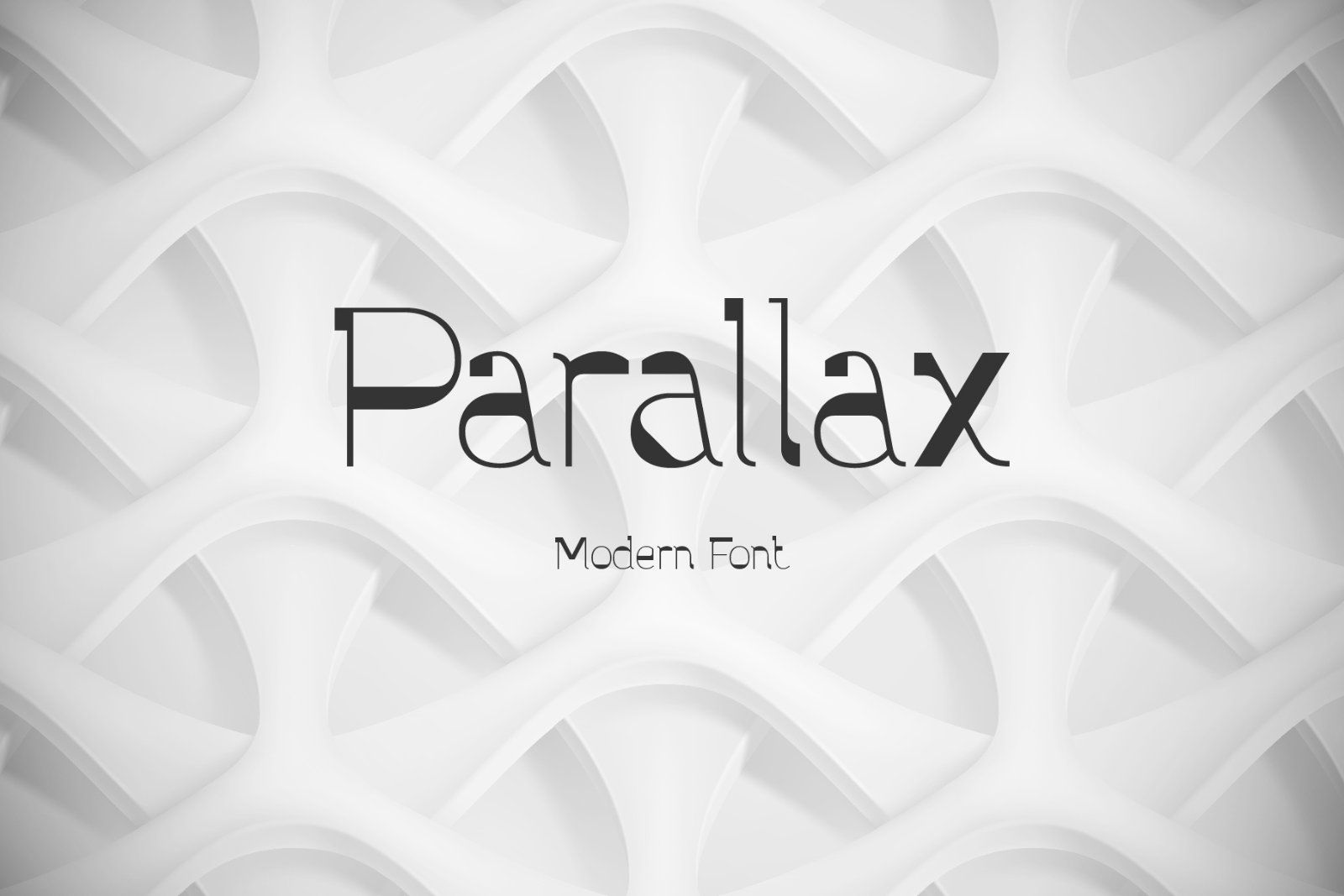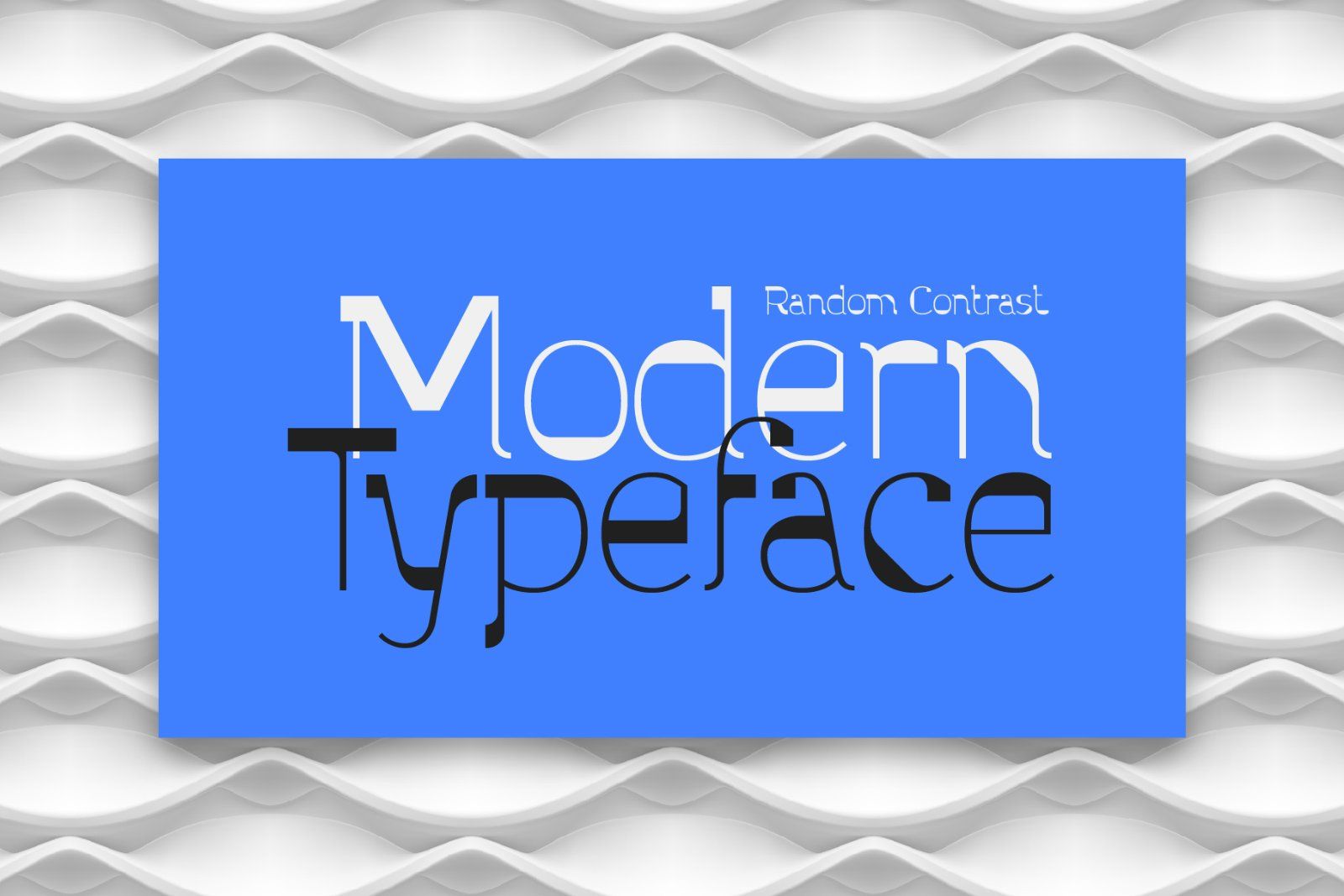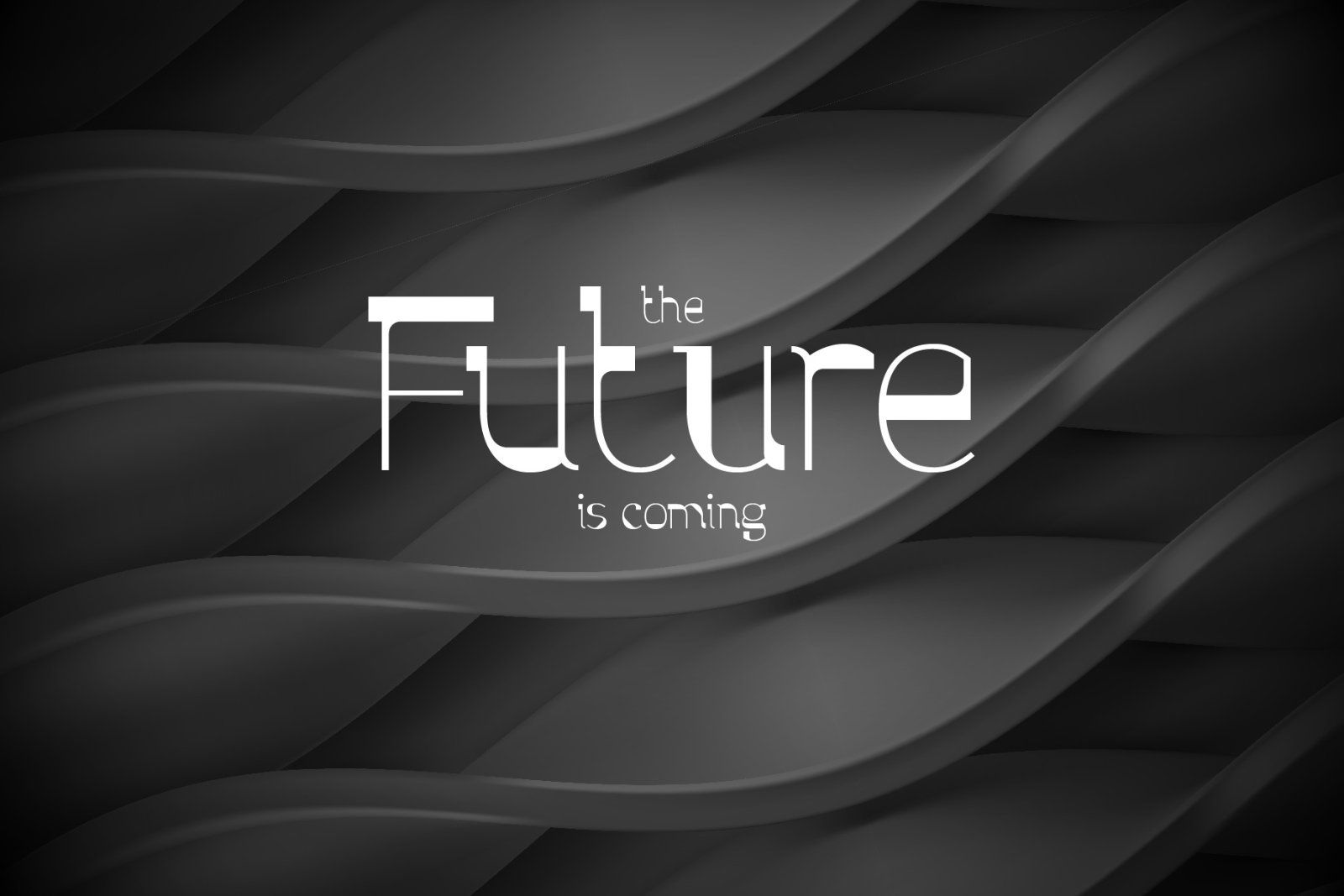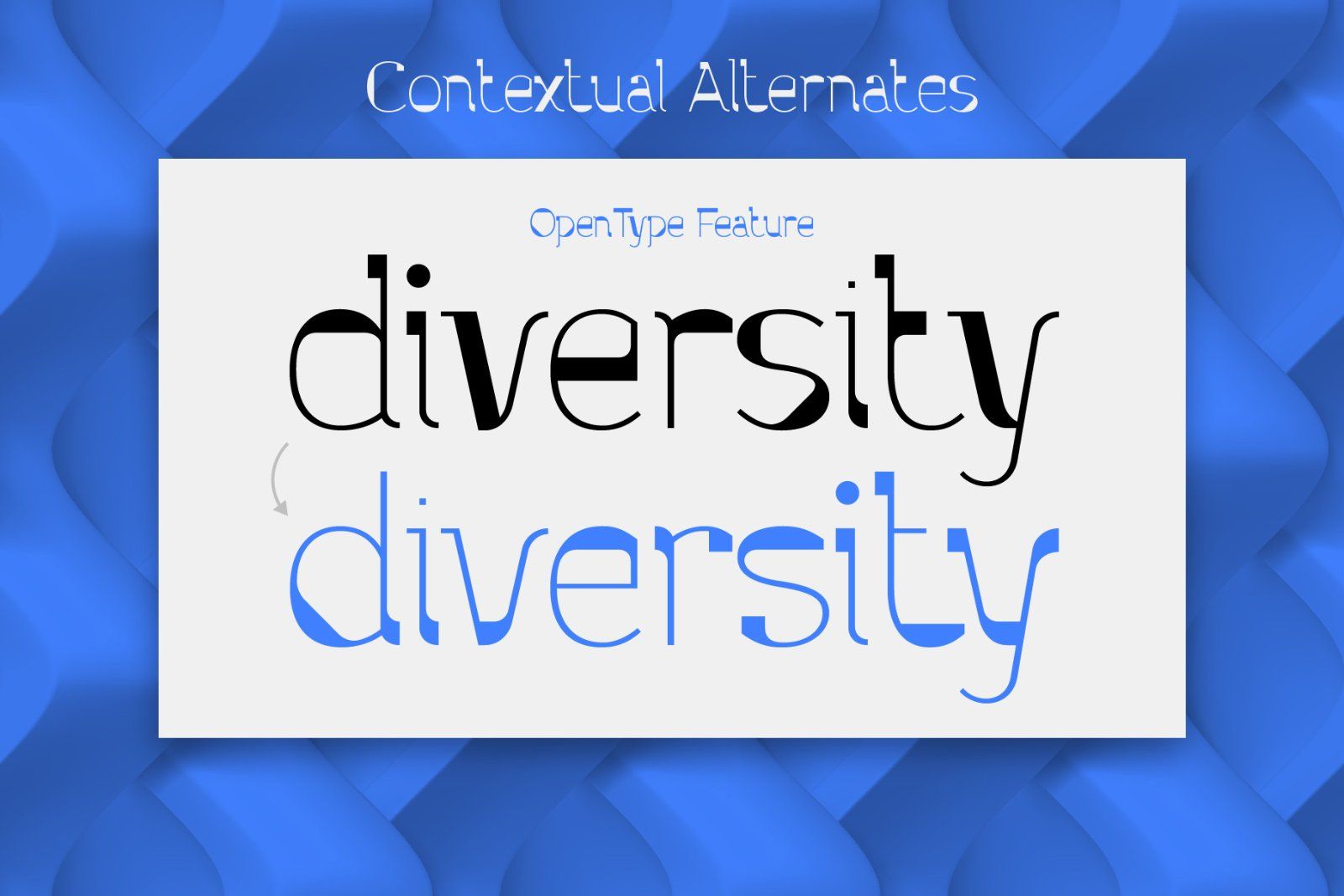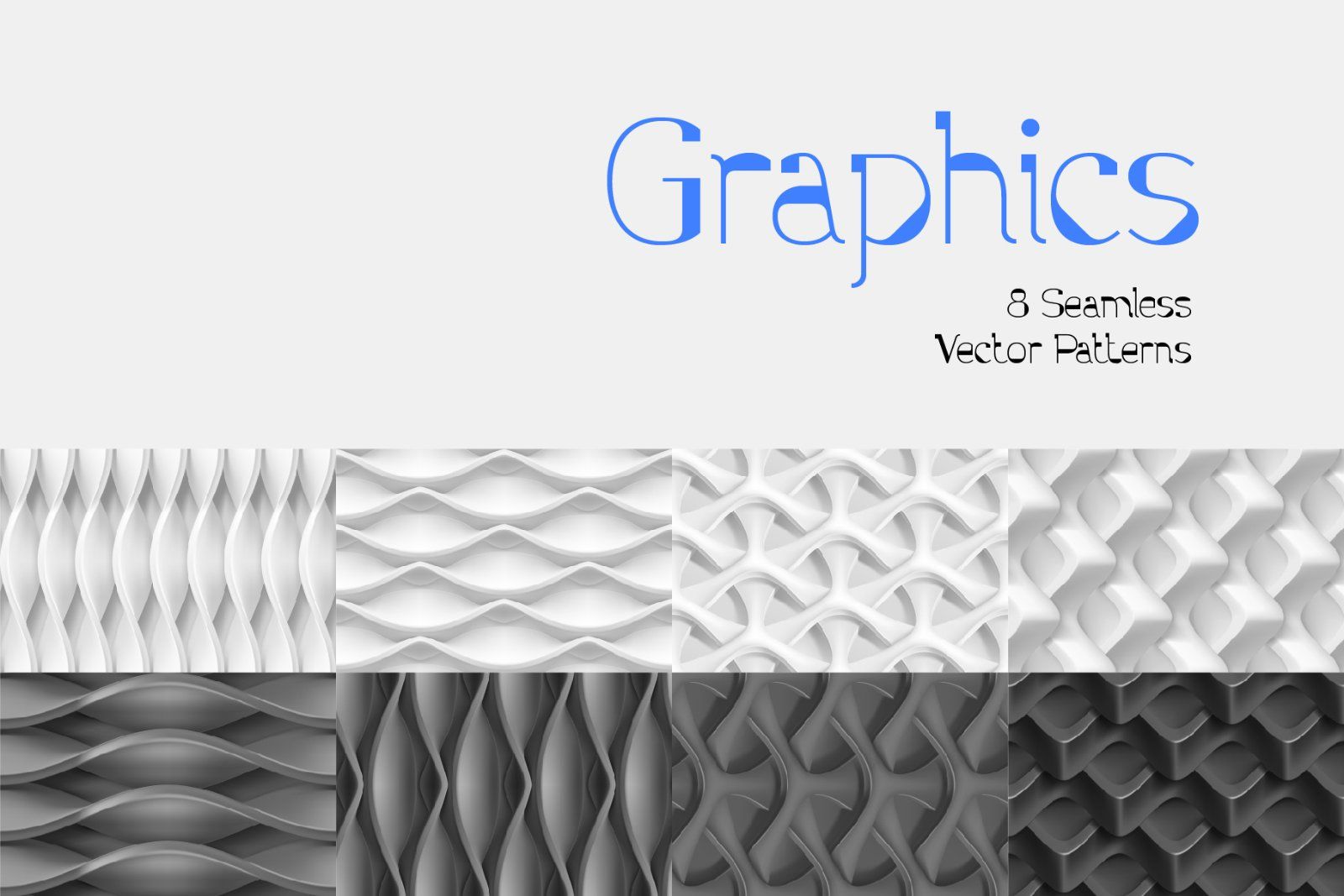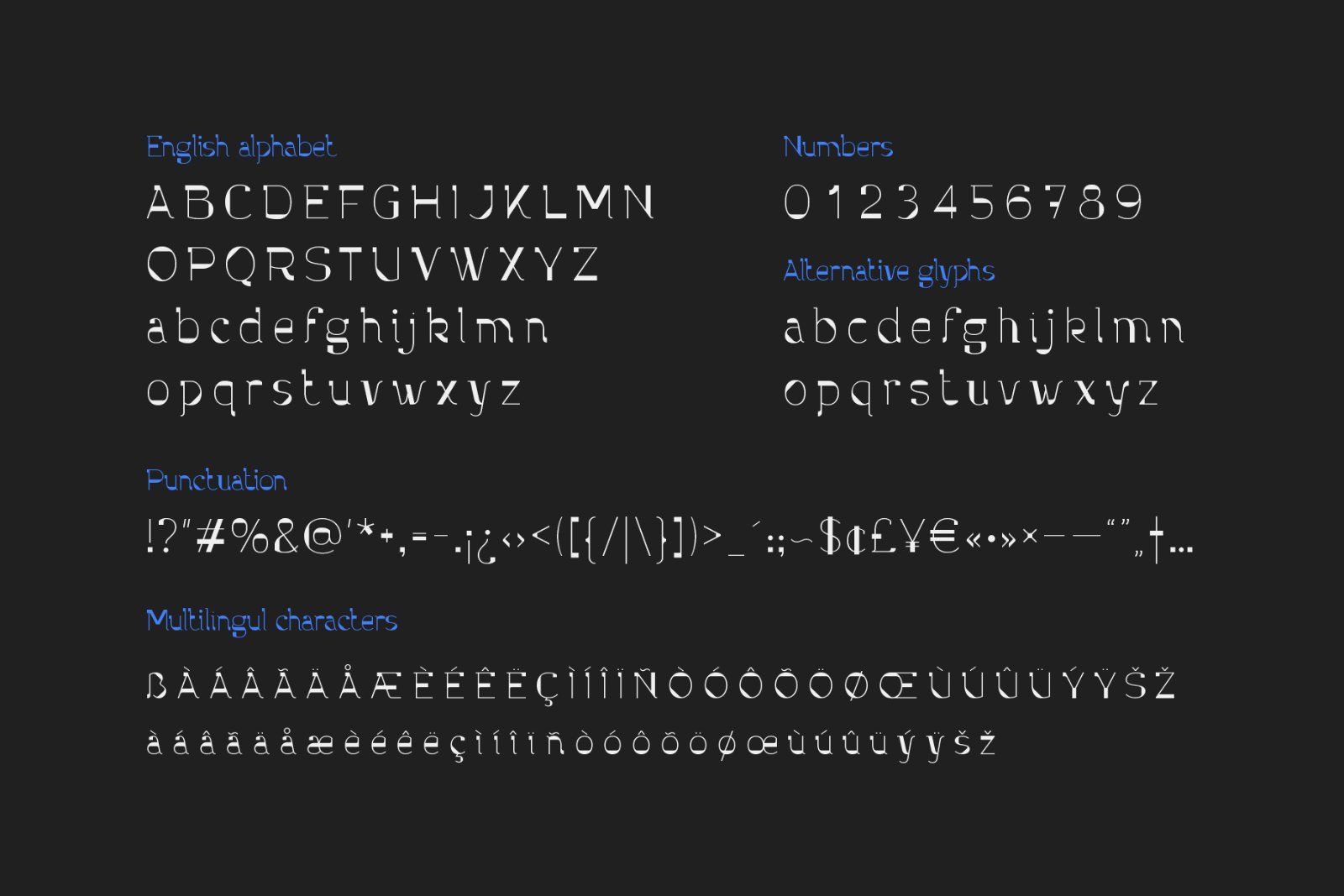
Hi, introducing a modern creative font named Parallax. It's a trendy looking geometric typeface with random contrast characters shape. It includes 26 contextual alternates that will help you to avoid similar letters in most cases. Otherwise you can always switch the letters using stylistic alternates feature.
Parallax font have a multilingual support of west European languages, please check out all available characters on screenshot.